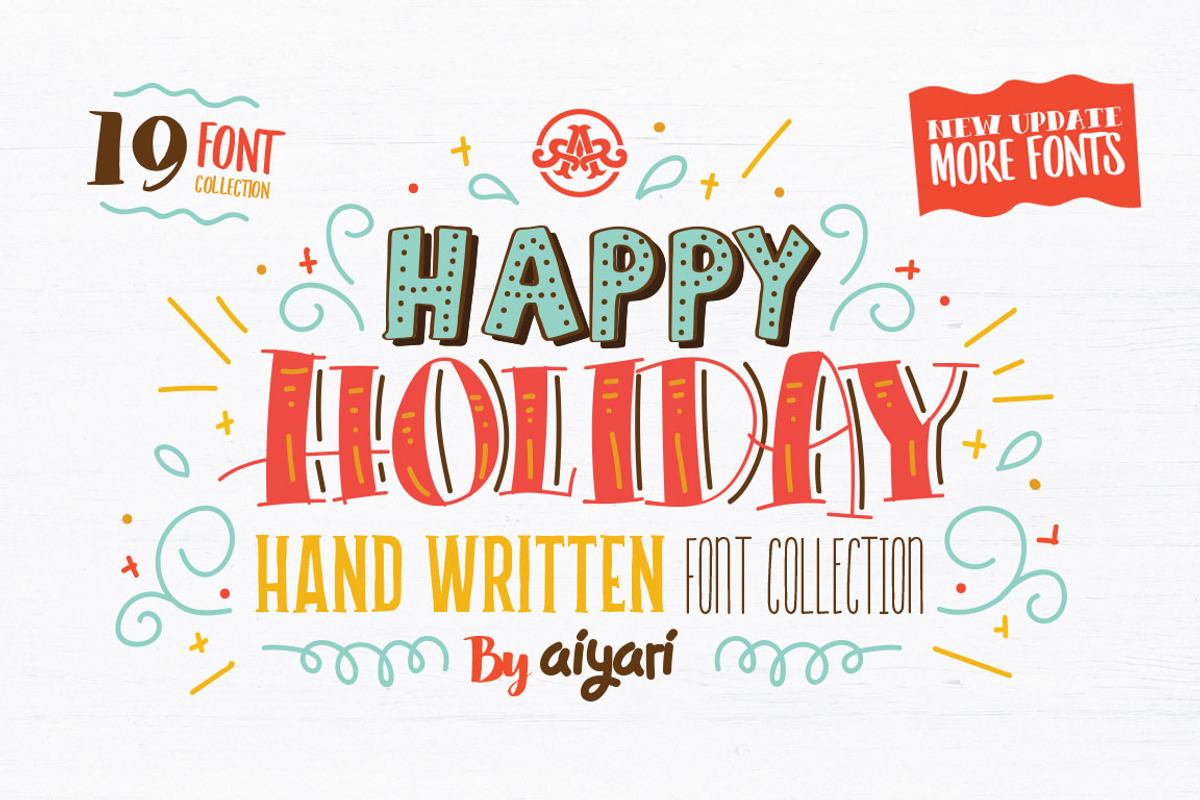
You must purchase this font for commercial use. However, you can download Happy Holiday Font Free Download for testing purposes. Happy Holiday is a cheerful, festive font designed to bring warmth and joy to your holiday designs. Perfect for Christmas cards, holiday promotions, invitations, and seasonal greetings, this font adds a playful and friendly touch to any project.
With its rounded, fun letterforms and festive vibe, Happy Holiday is ideal for spreading holiday cheer. Whether you're designing a festive event flyer, a holiday greeting card, or decorations, this font will bring the spirit of the season to your typography.